TypeTalk: Give These Fonts a Hand
Should you choose a handwriting font or real handwriting for your next project?
Q. Which is better for an informal look: a handwriting font or real handwriting?
A. Handwriting, whether it’s a font that looks like handwriting or custom lettering produced for your project, can be a warm, personal treatment for ads, book jackets, packaging, invitations, logos, signage, film titles, and other designs. There are pros and cons to consider when deciding whether to use a font or real handwriting.
Handwriting Fonts
- Fast and easy
- Consistent
- Easily scalable and editable
- A fixed cost, just the price of the font(s)
- You know exactly what you’re getting beforehand
Note that fonts often contain only one design per character. Therefore, repeated glyphs might all be the same letterform, a repetition that can spoil the individuality you’re aiming for. Look for an OpenType font with alternates to avoid this problem.
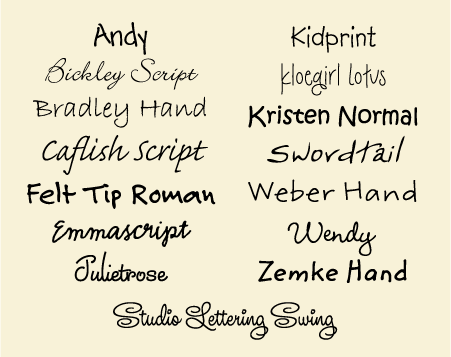
This is just a sampling of the many digital handwriting fonts.
Real Handwriting (Or Hand Lettering)
- Unique
- The person doing the lettering can infinitely customize each letter and/or the overall look, feel, and fit
- Not easily editable
- Could be relatively expensive if you’re using a lettering artist, especially for a lot of text
- Could be free if using your own handwriting or that of someone you know
If you want to use hand lettering, don’t be afraid to try your own “hand” at it, so to speak, or ask other people you know for samples of their handwriting.
Jill Bell creates some of the best handwriting and hand lettering around. All of the following examples are her work.
Handwritten gift cards for a series of Lenox print ads
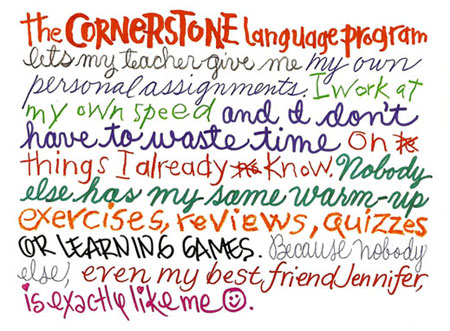
Cornerstone Software print ad
Recipe cards for Williams Sonoma
Handwritten copy for an Oliver Peoples print ad series
Seabrook print ad
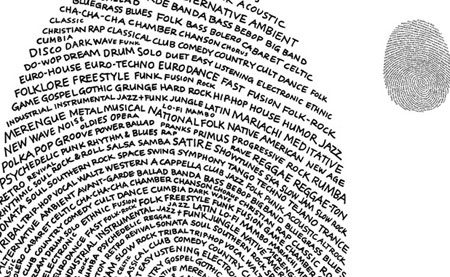
SBC Yahoo newspaper ad
Hand lettering for book cover